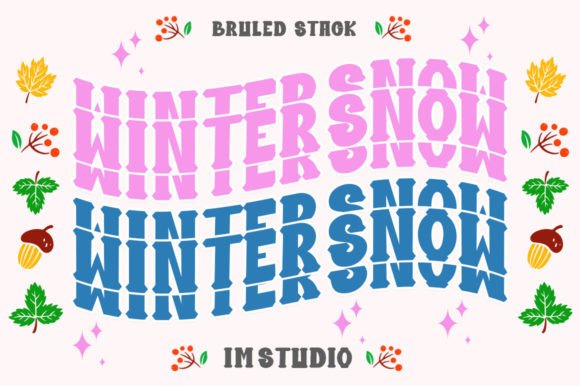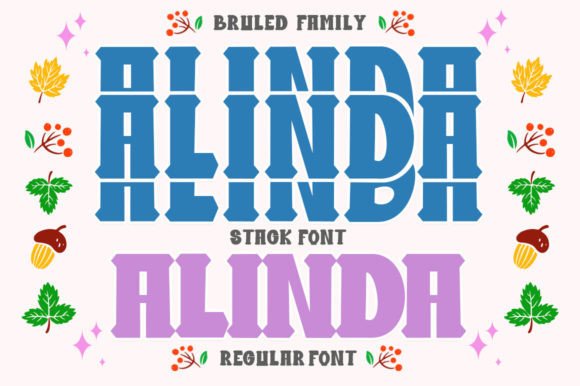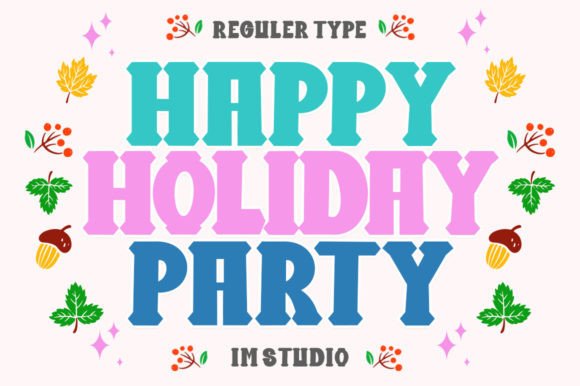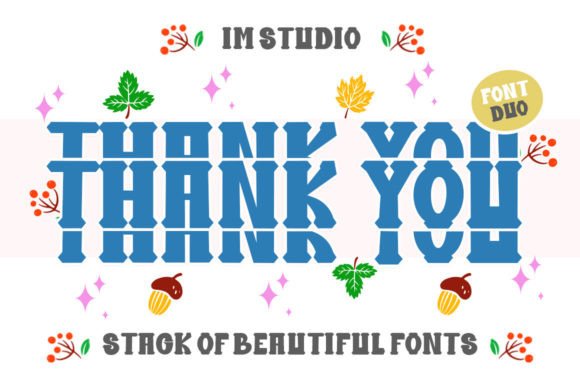
Unlocking the Groovy Vibes with Bruled Stacked Duo Font
Remember that moment when you stumbled upon the perfect font to match your creative vision? For designers, that moment is like a breath of fresh air. It’s the spark that ignites a new project, and for many, it’s the Bruled Stacked Duo Font that sets their imagination ablaze. This Groovy font style in stacked effect is not just a pretty face; it’s a versatile tool that can help you create trendy text designs that stand out from the crowd.
The Bruled Stacked Duo Font is designed to make your life easier, with 2 glyphs to help you craft unique and eye-catching designs. Plus, its PUA coding means you can access all the amazing glyphs and ligatures with ease, giving you endless possibilities to experiment and express your creativity. Whether you’re a seasoned pro or a design newbie, this font is perfect for everyone who wants to add a dash of fun and personality to their work.
Bruled Stacked Duo Font Key Features
- Unique Characteristics: Features a distinctive stacked design with ruled lines, perfect for creating visually appealing tables, forms, and documents.
- Legibility: Designed for optimal readability, with clear and concise typography that ensures easy comprehension of text content.
- Style Variations: Includes multiple style variations, including regular, bold, italic, and bold italic, allowing for flexibility in design applications.
Bruled Stacked Duo Font Review
Overall, I think the Bruled Stacked Duo Font has some interesting aspects, but also some limitations. ✨ Here are the highlights and drawbacks:
- Unique look: The stacked design and bold lines give the font a distinctive, eye-catching appearance that’s perfect for headings and titles.
- Good for creative projects: The font’s quirky, artistic feel makes it well-suited for creative projects, such as illustrations, logos, and branding materials.
- Easy to read: Despite its bold lines, the font is surprisingly easy to read, especially at larger sizes.
However, there are some areas where the font falls short. ⚠️ Here are the limitations:
- Limited legibility at small sizes: The font can become difficult to read when used at very small sizes, which may limit its usability for body text.
- Lack of style variations: The font comes in only two weights, which may limit its versatility for different design projects.
- Not suitable for large blocks of text: The font’s stacked design makes it less suitable for large blocks of text, as it can become overwhelming and difficult to read.
Overall, I think the Bruled Stacked Duo Font is a great choice for creative projects that require a unique, eye-catching look. However, it may not be the best choice for projects that require a lot of body text or require a more traditional font style.